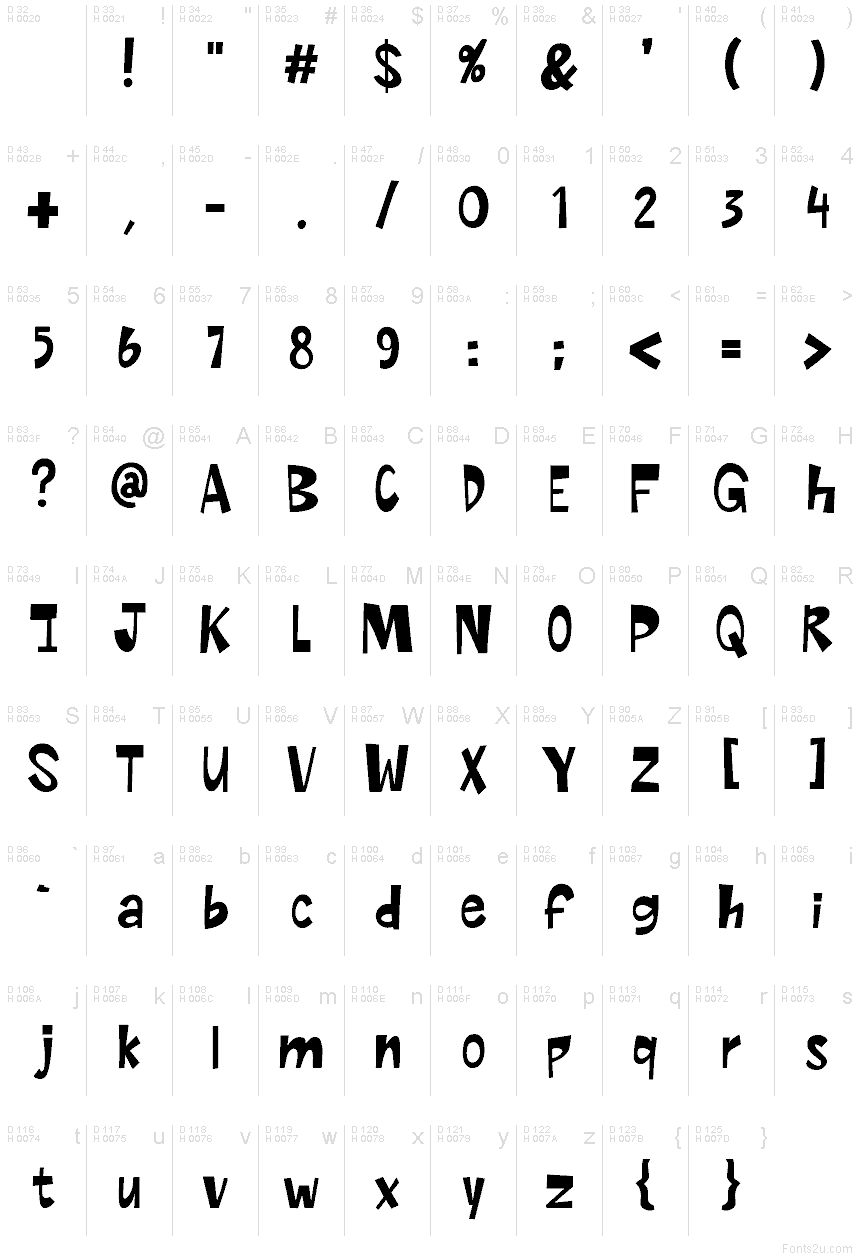
The Jungle Beast
The Jungle Beast font by BlackFridayFont FMF is a free comic display font that barrels onto the page with big, lopsided curves and a lively, hand-cut bounce. Its chunky, inky strokes feel like paper cutouts—playful, a little wild, and incredibly readable at headline sizes. The rhythm is loose but consistent, giving you loud energy without visual clutter.
Using The Jungle Beast, titles leap off posters, thumbnails, and packaging with a friendly roar. It shines on kids’ book covers, school event flyers, jungle-themed party invites, zoo or camp merch, adventure game logos, and playful snack branding. Pair this free font with a straight-laced sans for small text, and keep headlines large with slightly tight tracking to amplify its bold, bouncy feel.